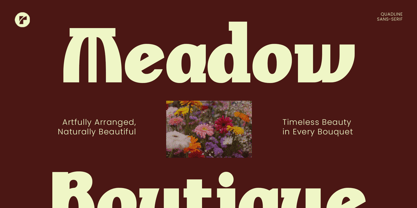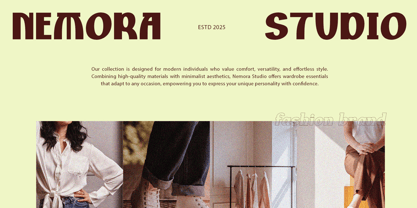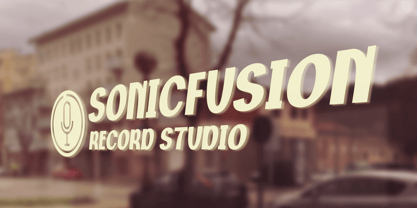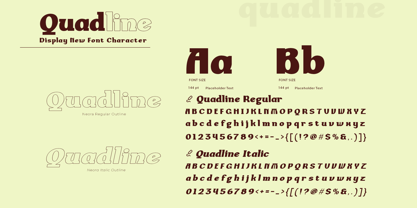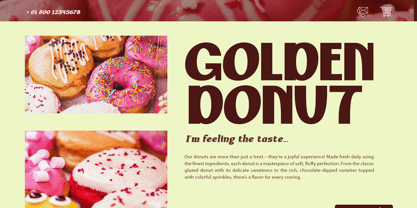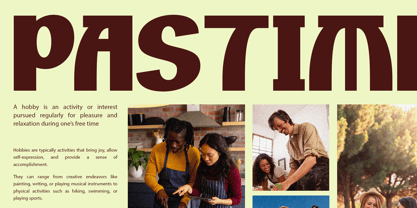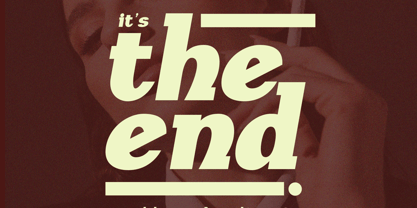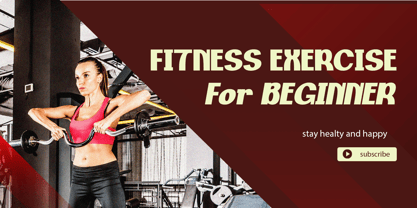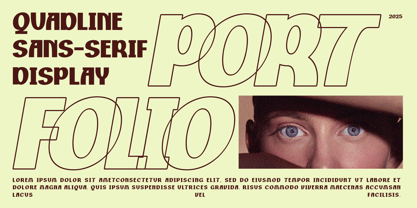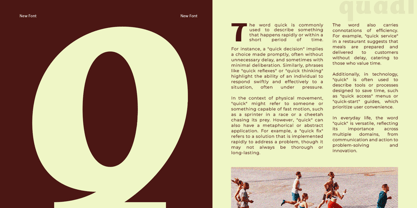
Quadline
by Jafar07
The Quadline Font Family was designed by Bakhrudin Ja'far and published by Jafar07. Quadline contains 3 styles and family package options.
Quadline is a bold display serif condensed font with a retro-modern vibe, combining strong structure and timeless elegance. Its sharp serifs, clean proportions, and balanced kerning make it versatile for impactful designs. Perfect for logos, branding, packaging, posters, social media, magazines, and editorial projects, Quadline brings a sophisticated yet stylish personality to your typography. Add Quadline to your font library today and give your designs a bold, classic touch with modern appeal.